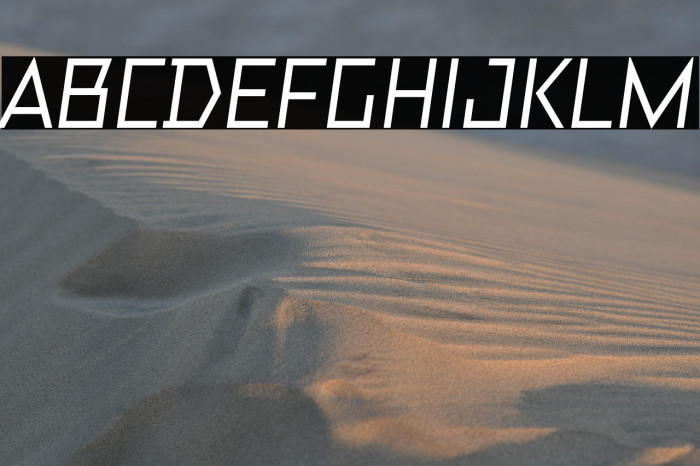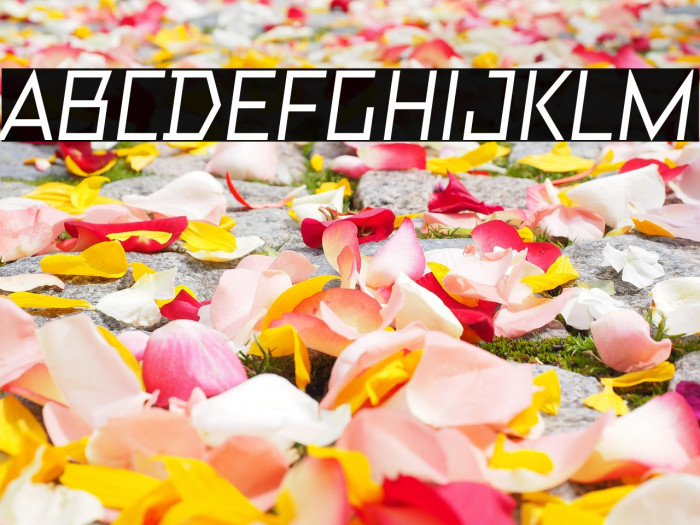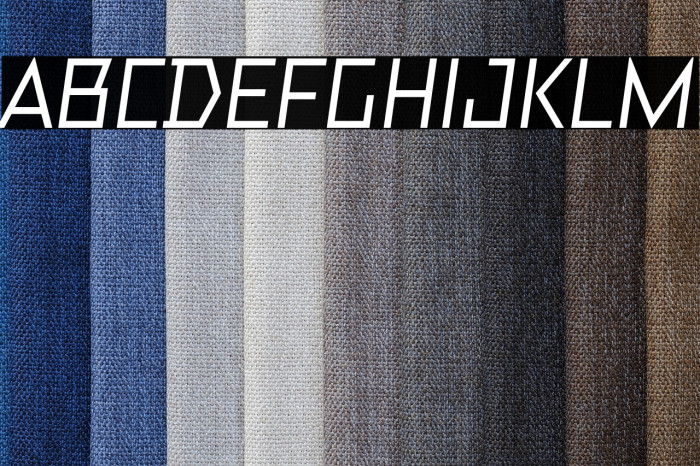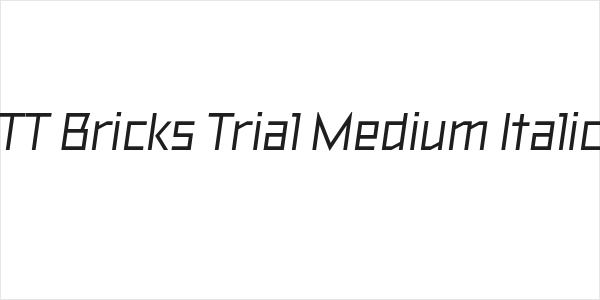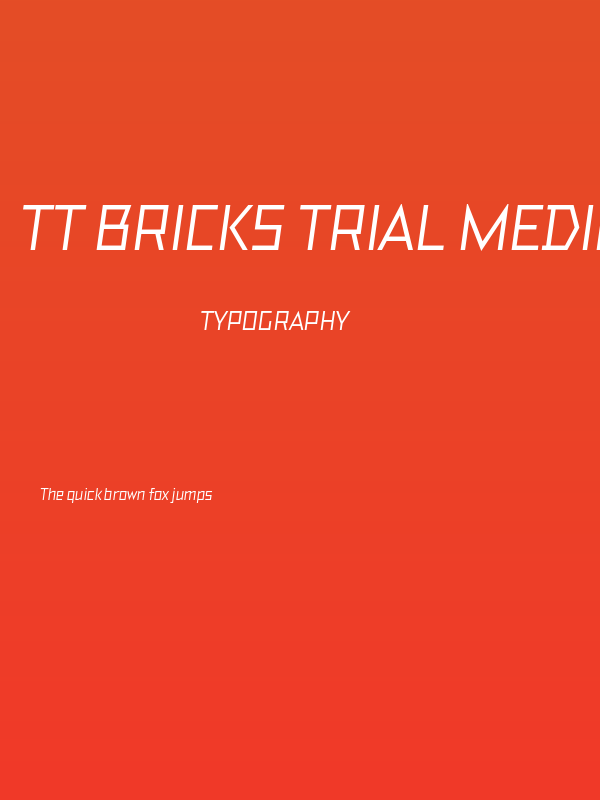
TT Bricks Trial Medium Italic Font
TT Bricks Trial Medium Italic Description
This font features a modern and geometric design with a distinct italic slant, giving it a dynamic and forward-moving appearance. The characters are constructed with clean, straight lines and sharp angles, creating a sense of precision and clarity. The uppercase and lowercase letters maintain a consistent style, with a uniform stroke width that adds to the font's sleek and contemporary look. The numerals and special characters are designed to complement the alphabet, ensuring a cohesive overall aesthetic. This font is ideal for projects that require a modern, technical feel.
| Use Case | Headlines, Logos, Editorial design |
| Proposed Projects | Ideal for technology branding, modern advertising, and editorial design. |